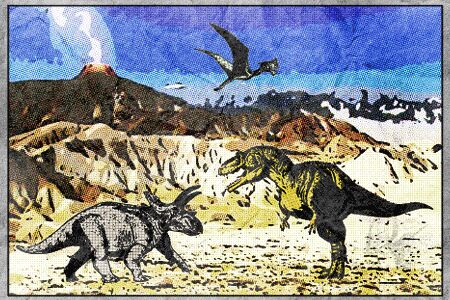
Dinosaurs by Anthony Robinson of Anfa is a free prehistoric animal symbol font featuring a lively collection of dinosaur illustrations. Each creature is drawn in scratchy black-and-white detail, with distinct scales, feathers, horns, and skeletal silhouettes. The poses range from low, lumbering profiles to alert runners and towering predators.
Museum activity sheets are its strongest setting, with related uses in children's books, science posters, and dinosaur-themed event materials. They can also become mascots for toy and educational brands.